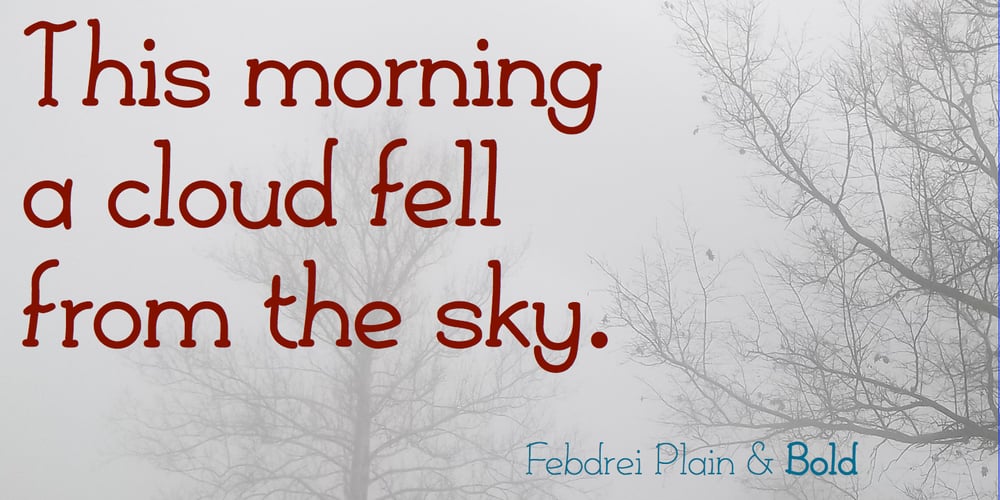
FebDrei Font Family was designed by Robert Schenk and published by Ingrimayne Type. FebDrei contains 4 styles and family package options. FebDei is neat, meticulous hand printing in two weights, plain and bold, each with italics. It has little contrast and appears as if it was written with a pencil or ball-point pen. Unlike many other hand-printing fonts, it has tiny serifs. FebDrei was created in the process of making the fonts AllSmiles and BringInTheFrowns and can be used with them.